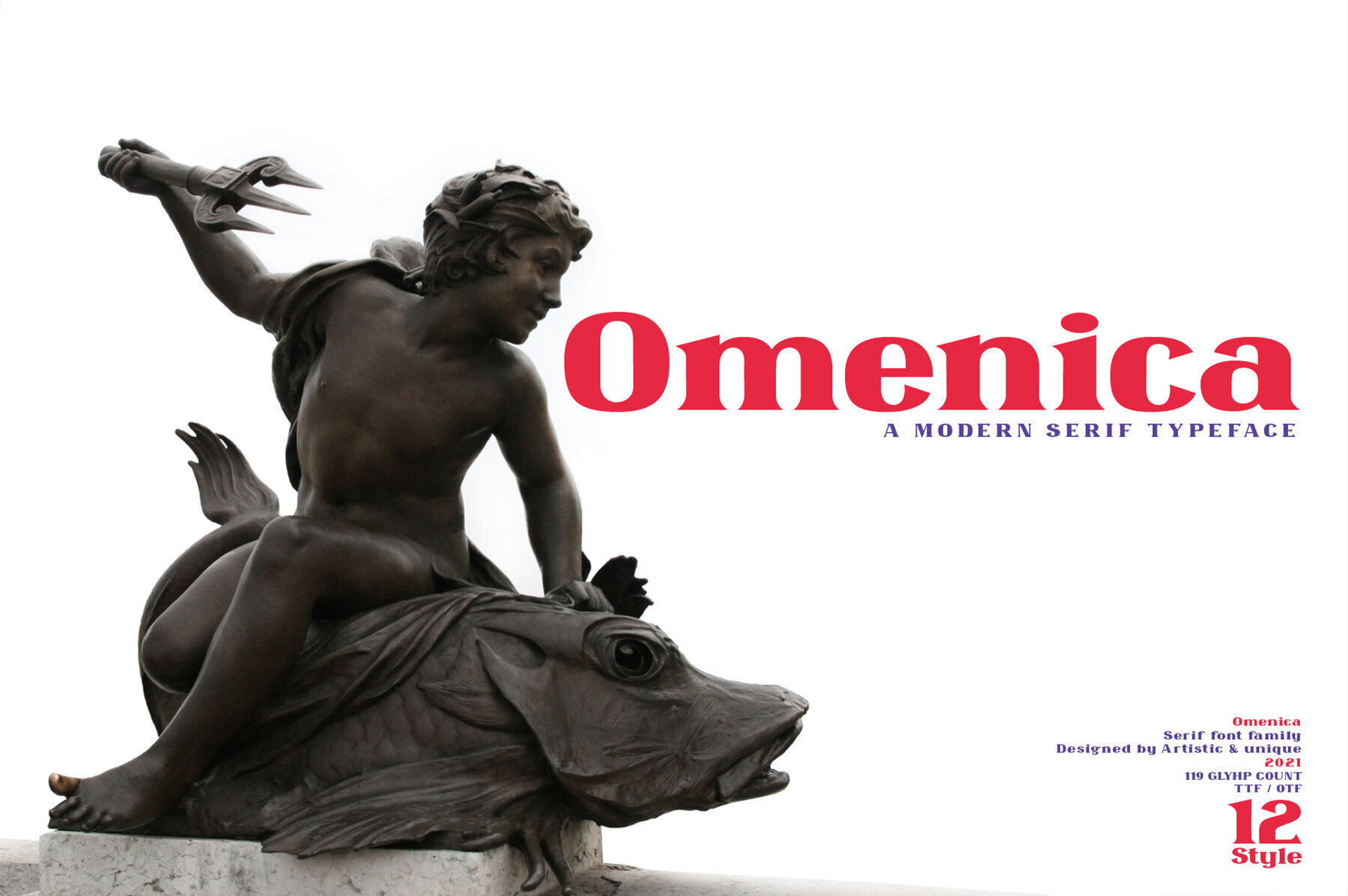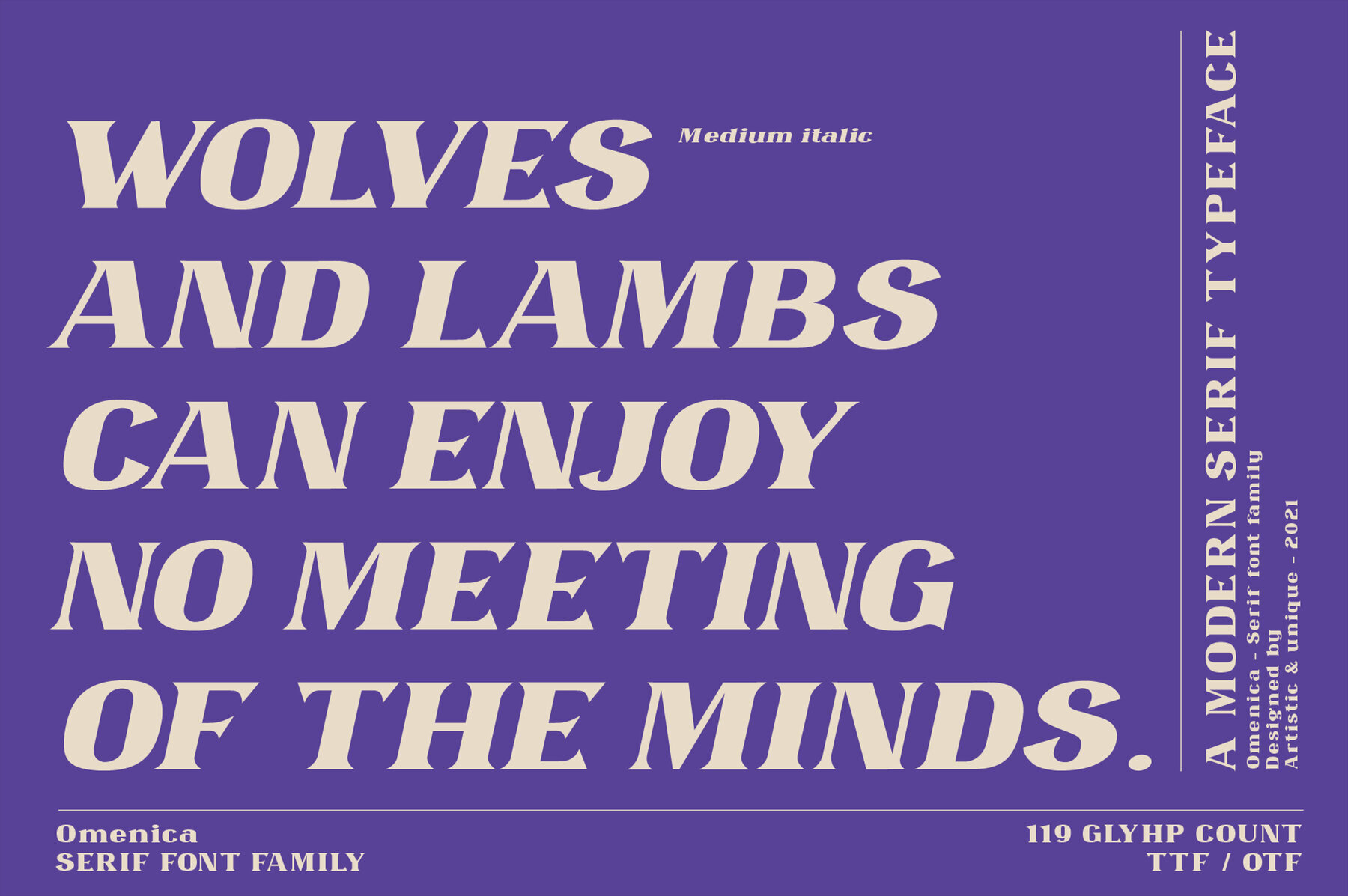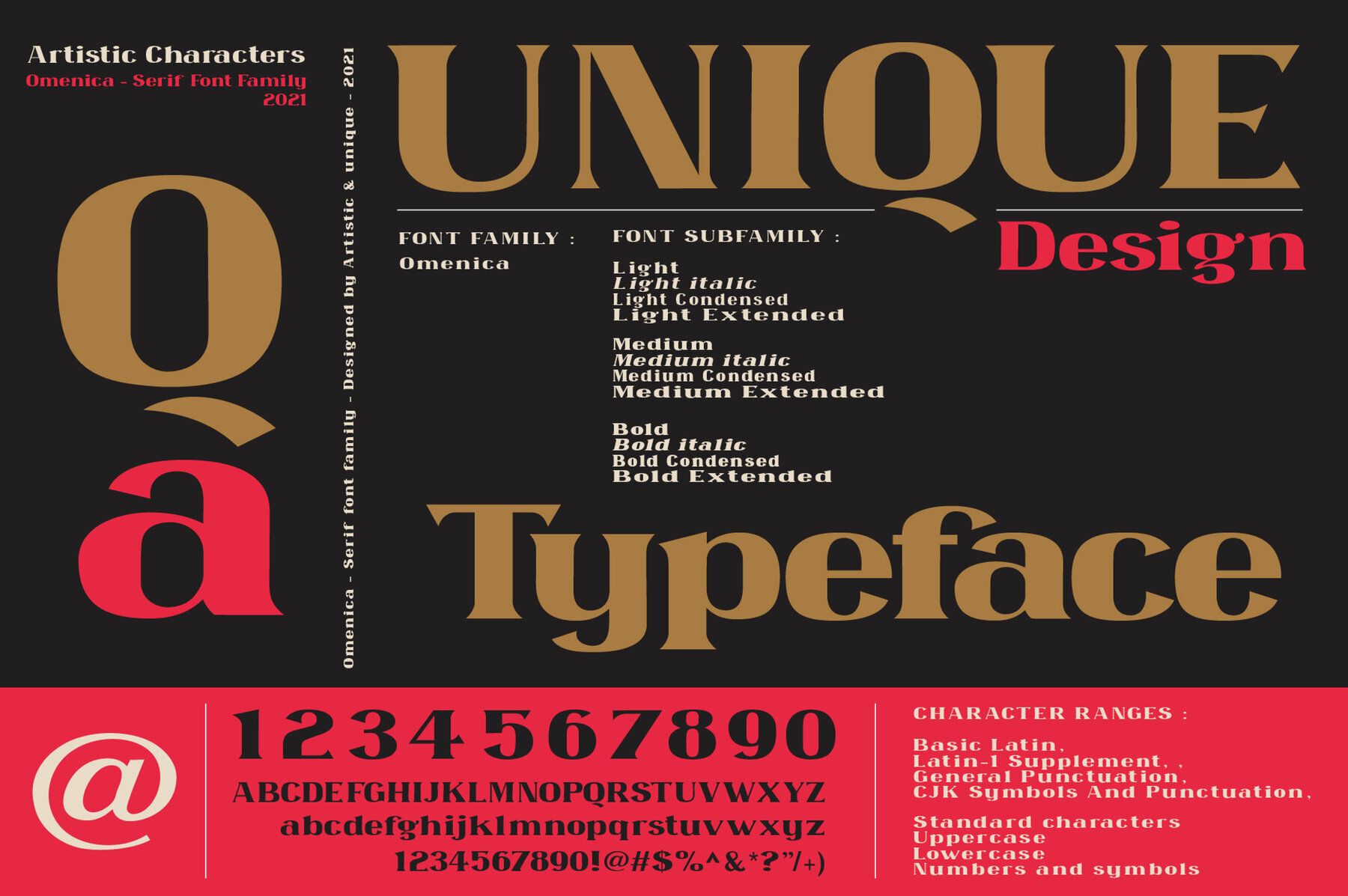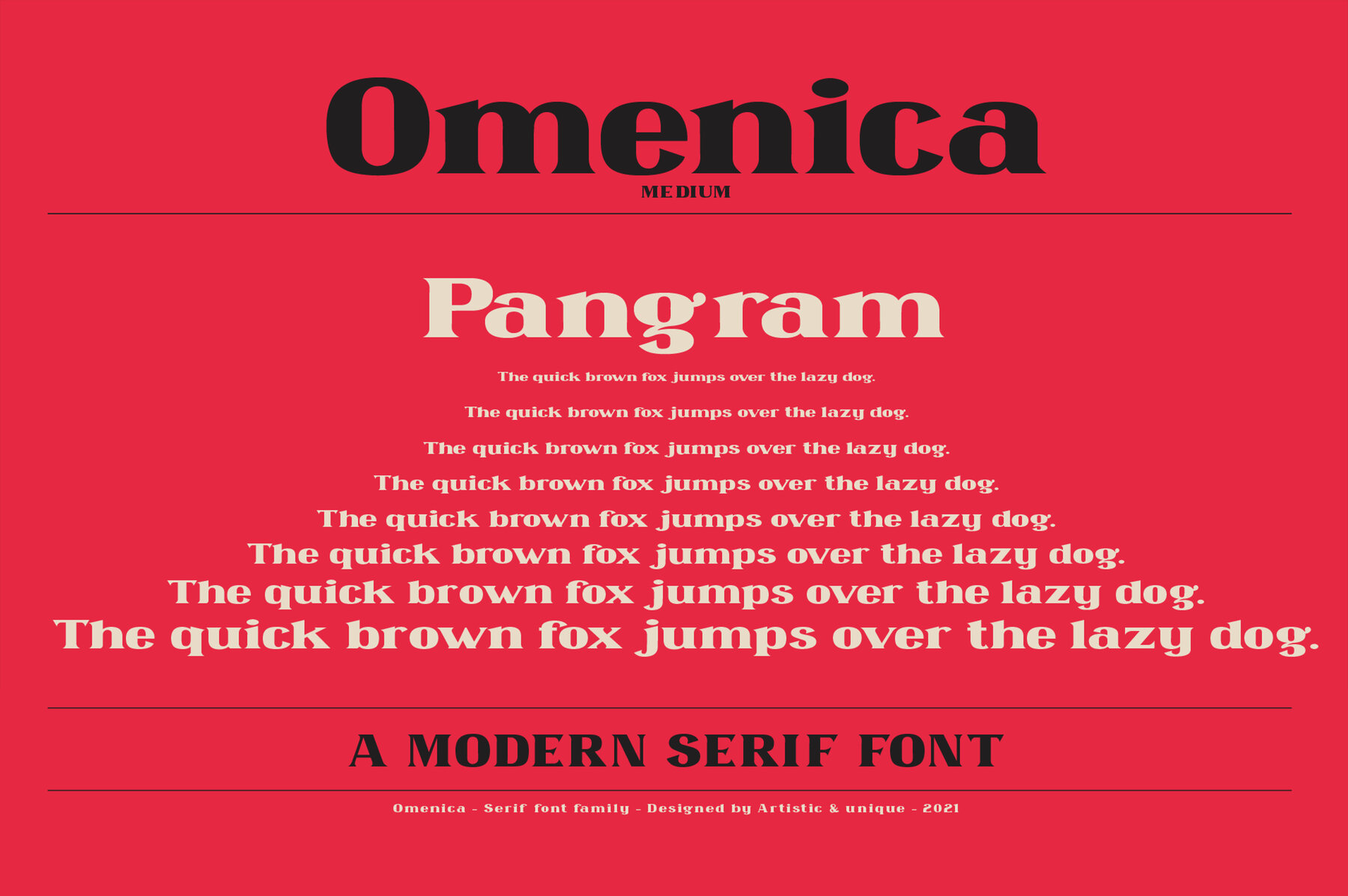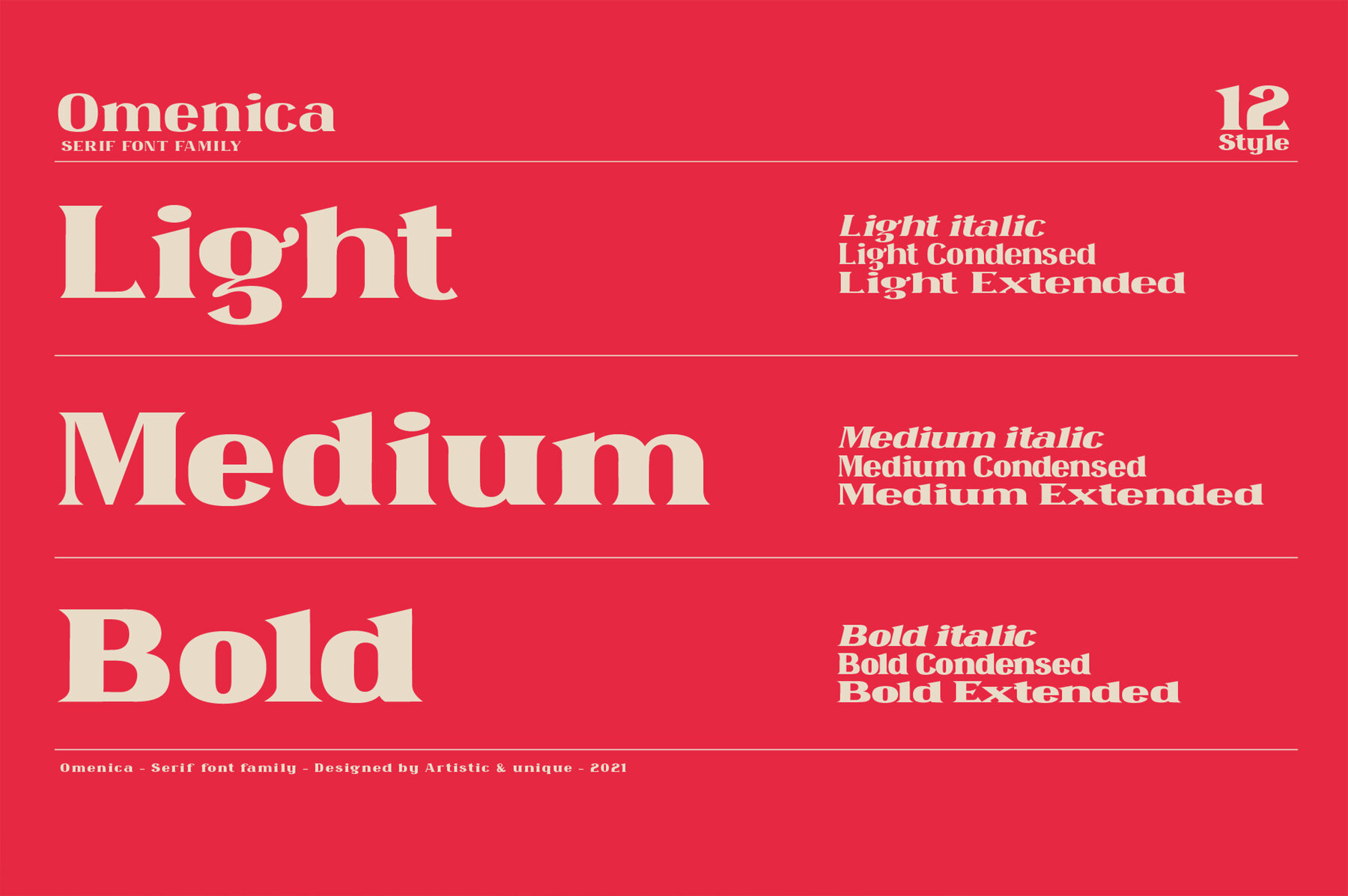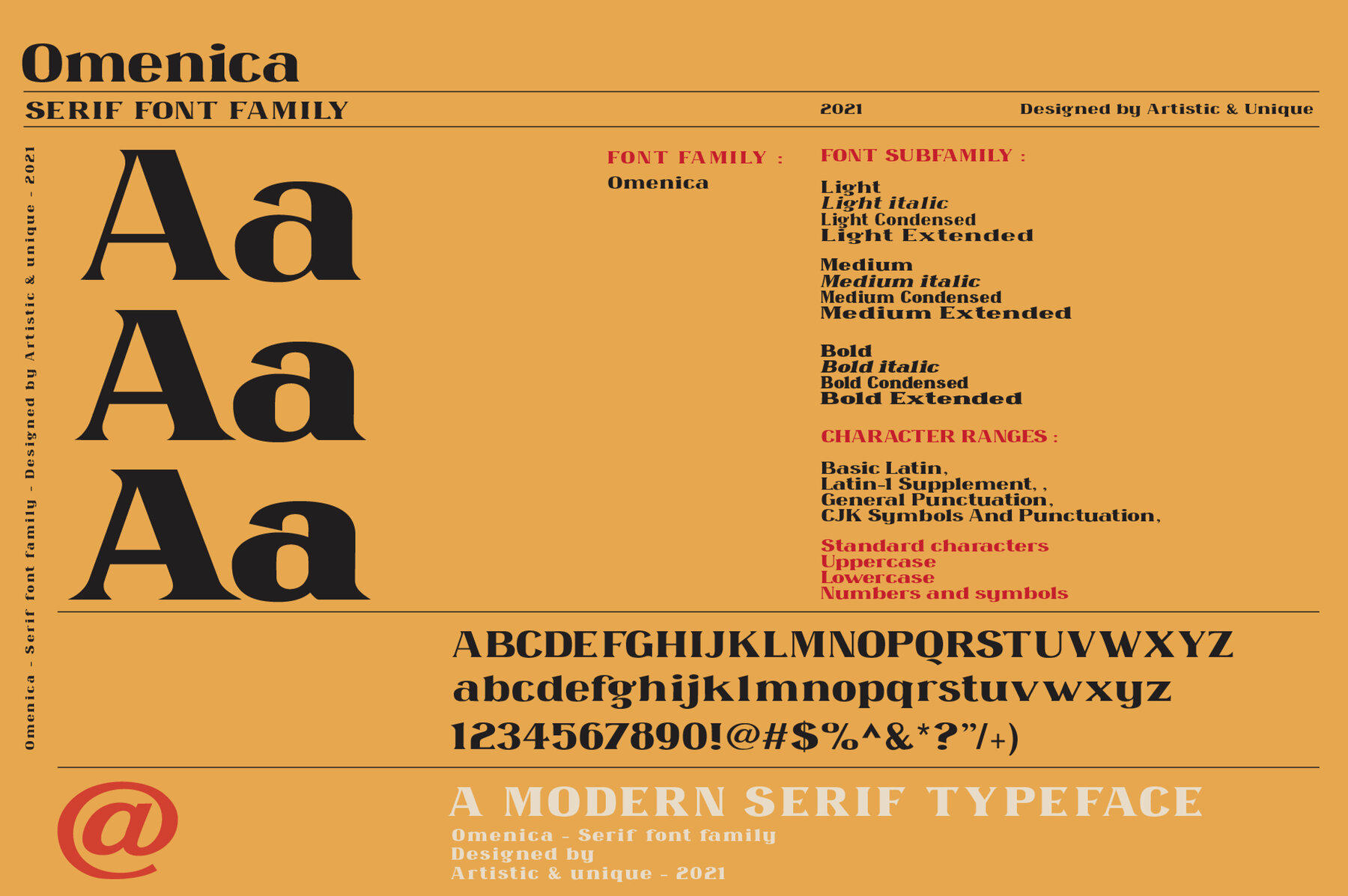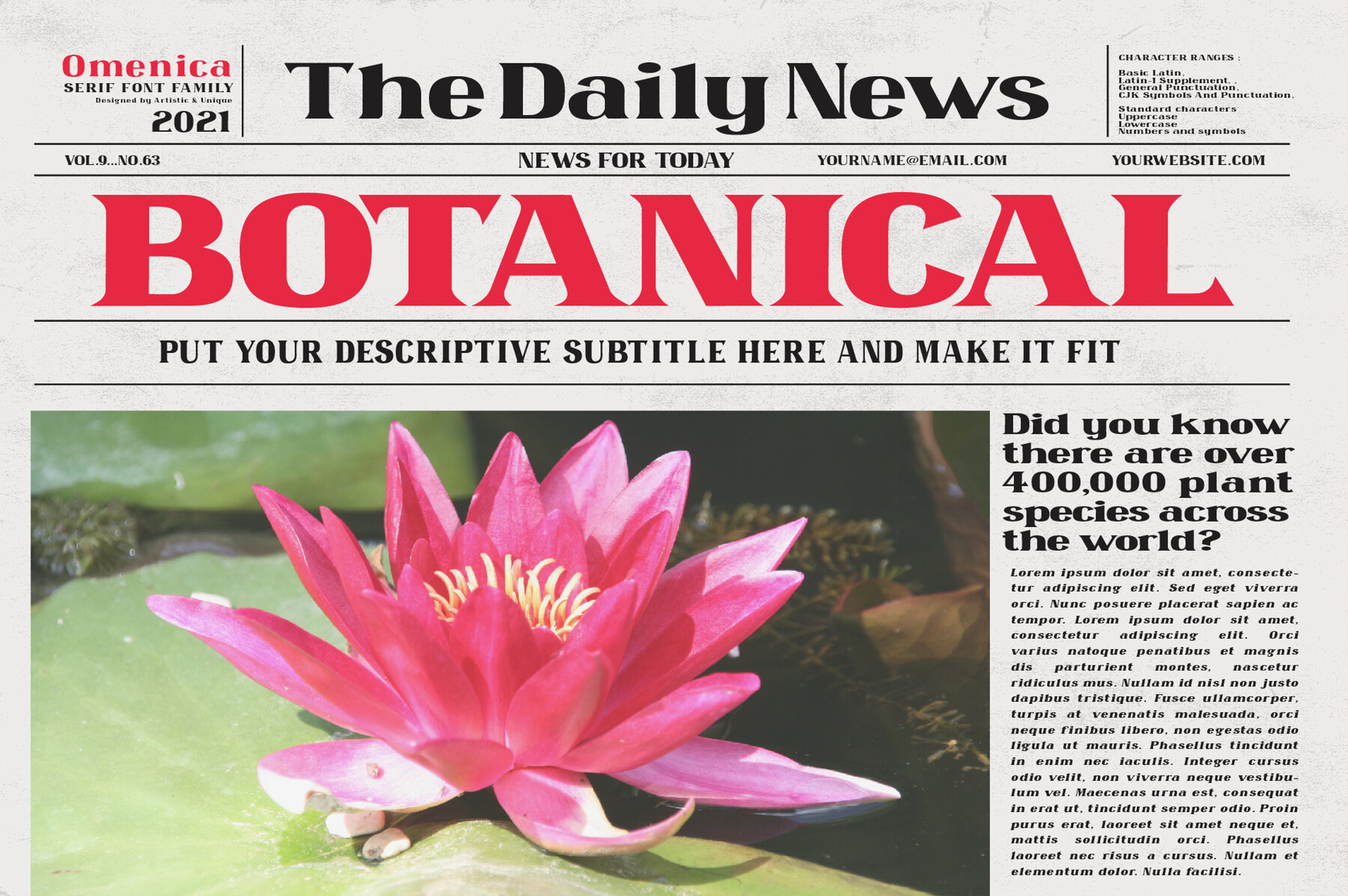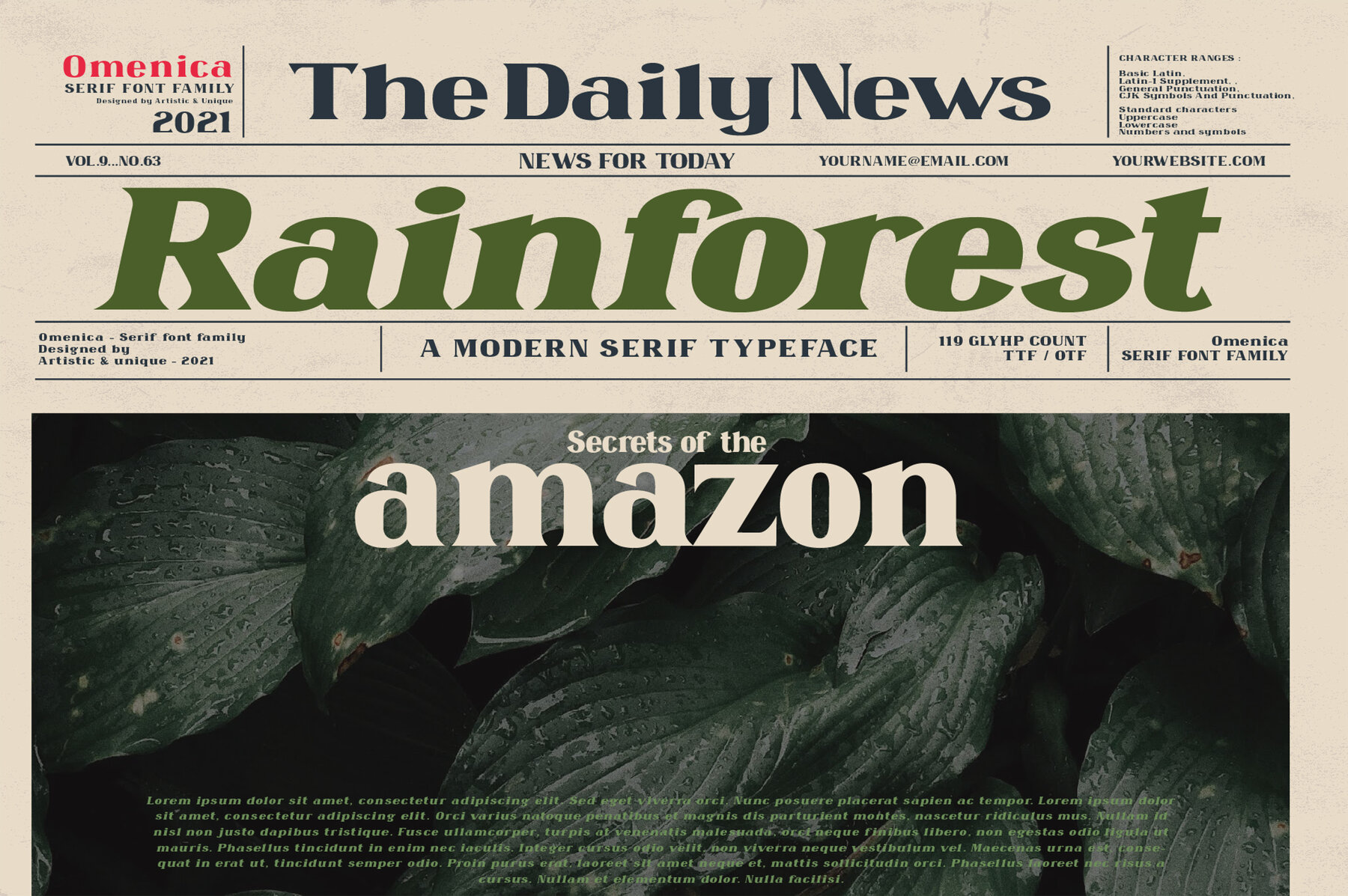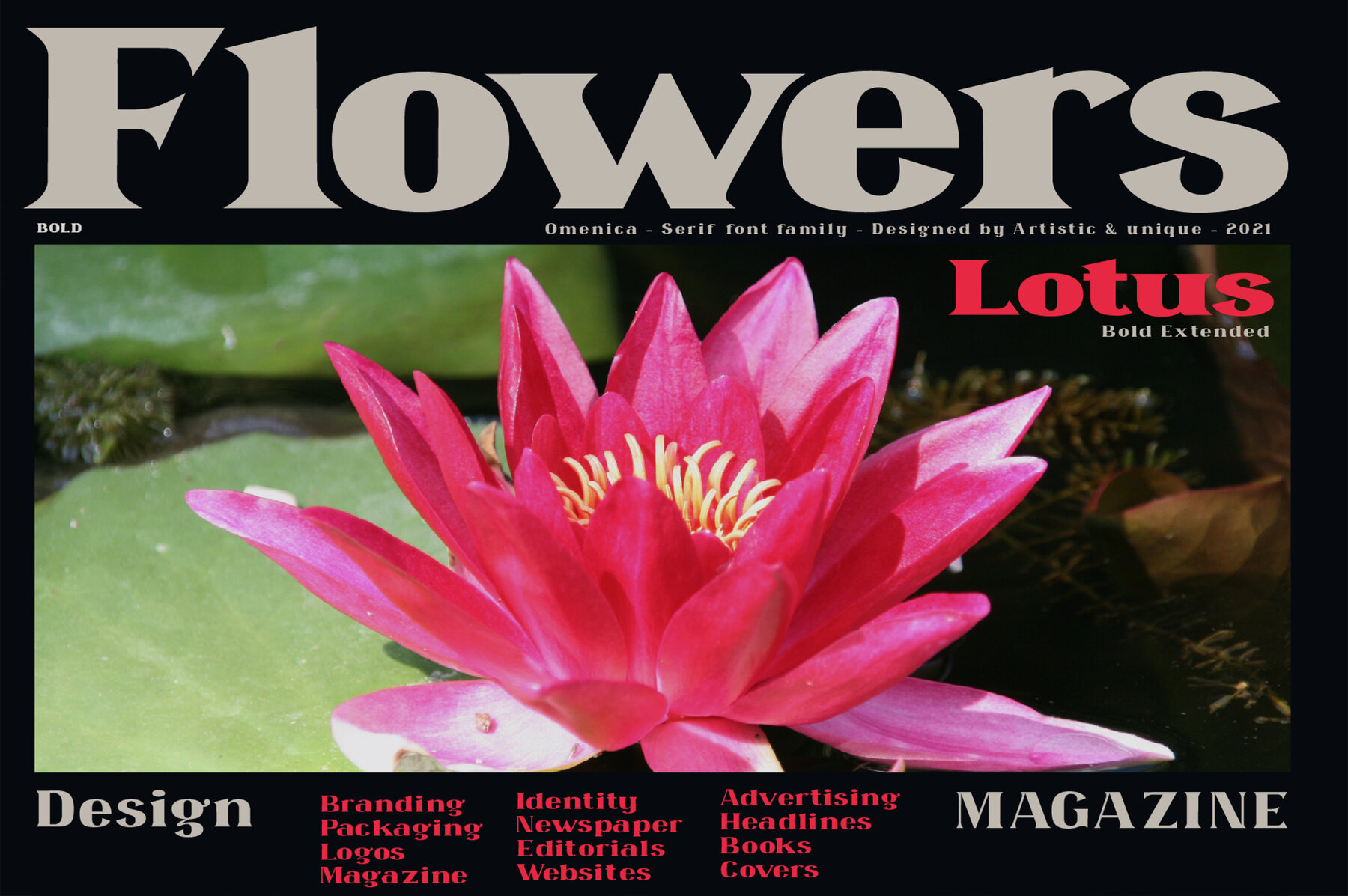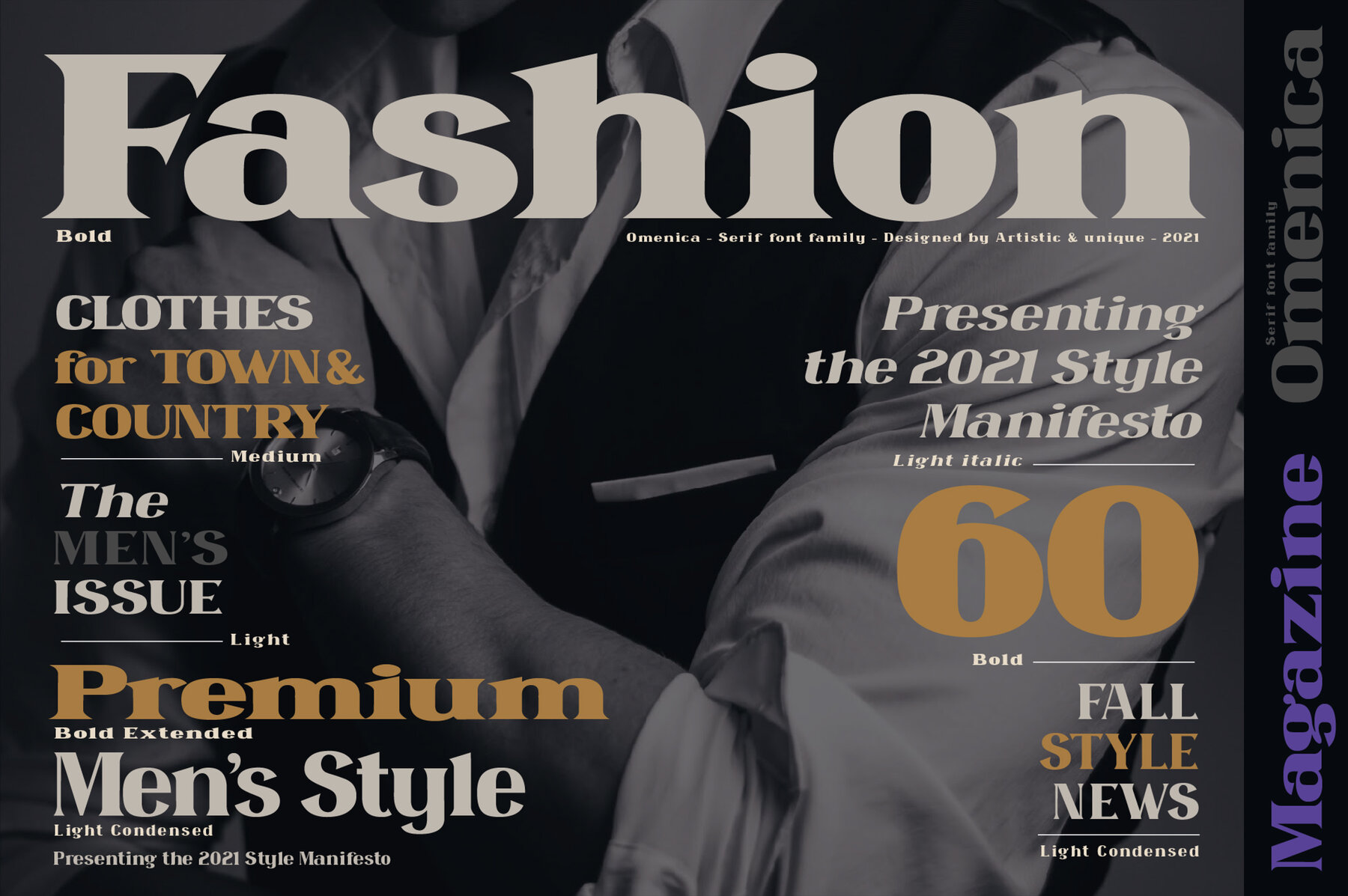
Omenica Font
Omenica is a versatile serif font family crafted to enhance any magazine or newspaper project with refined elegance. Its sharp serif structure and balanced character harmony make it ideal for use in titles on posters, magazines, albums, and book covers. Whether you need classic or modern, bold or subtle, this font offers 12 distinct styles to perfectly match the aesthetic of your project.Omenica Serif Font Family